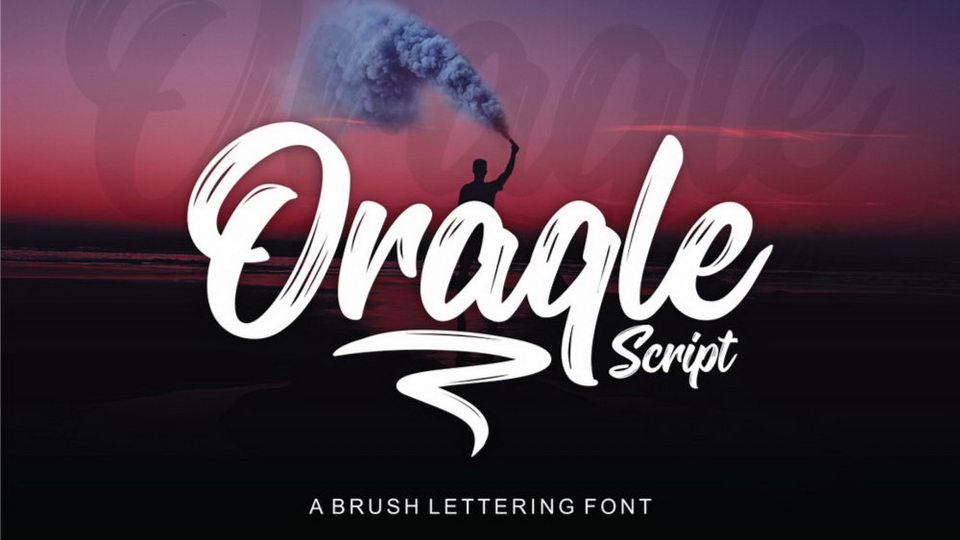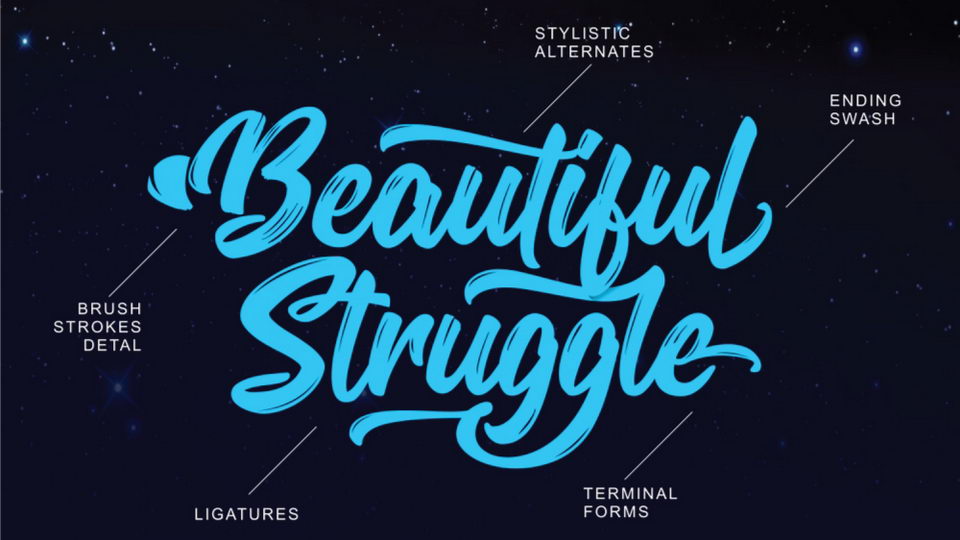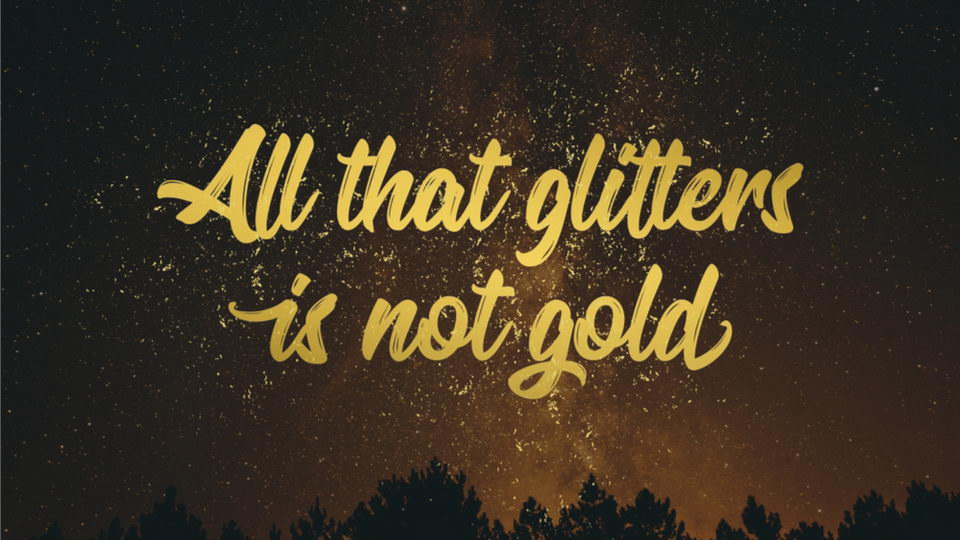
Oraqle Script is a free brush lettering font from that features bold strokes and authentic brush texture that will make your design stand out. Oraqle Script also has impressive movement with clean look. You can use it for all your needs, such as a logos, printed quotes, badges, insignias, packaging, headlines, posters, t-shirts/apparels, greeting cards, and wedding invitations, & etc.
Oraqle Script is available with many variations and extra swashes. It has uppercase, lowercase, numerals, punctuation & multingual characters, also includes some OpenType Features like ligatures, stylistic alternate characters & swashes.